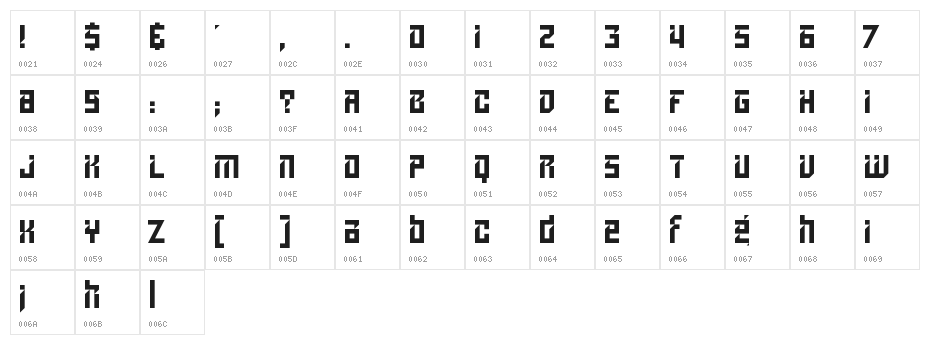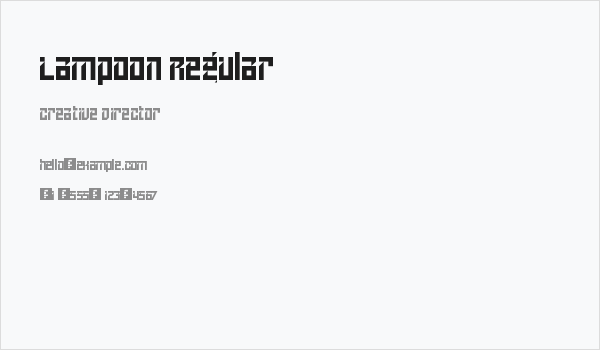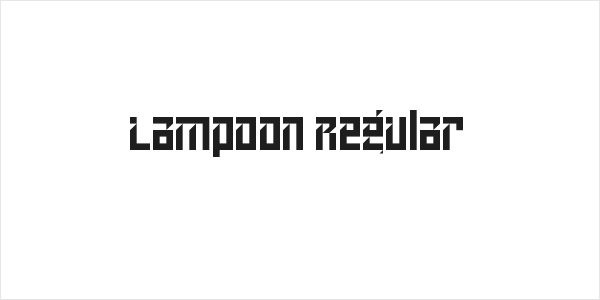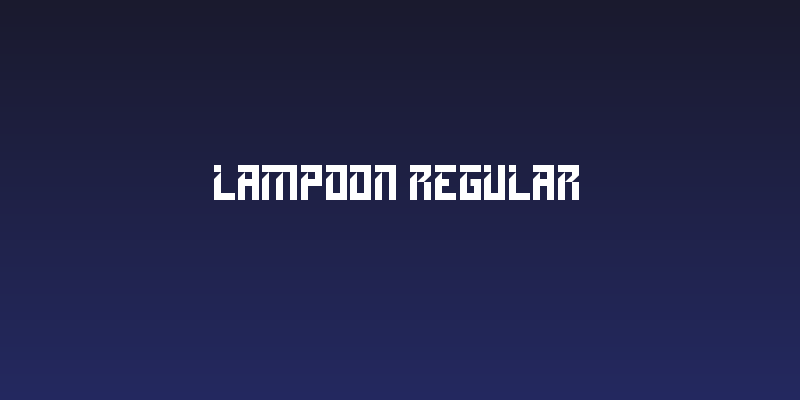
Lampoon Regular Font
Lampoon Regular Description
This font exhibits a bold and geometric style, characterized by its sharp angles and block-like structure. The uppercase and lowercase letters maintain a consistent height, giving it a uniform appearance. The design is reminiscent of digital or futuristic aesthetics, with each character crafted to have a distinct, edgy look. The numbers and special characters follow the same angular theme, ensuring cohesion across all elements. Its strong visual presence makes it suitable for attention-grabbing designs.
| Proposed Projects | Ideal for digital artwork, modern posters, video game graphics, and branding that requires a bold statement. |